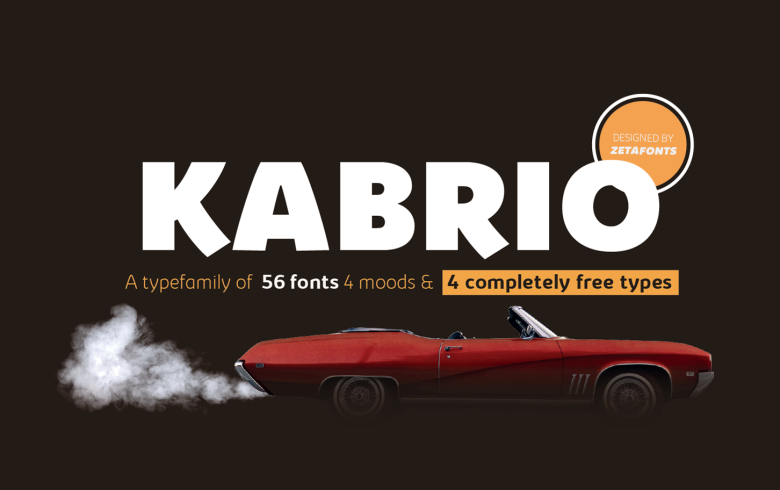
Kabrio Font Family
Today is a beautiful day, I would like to introduce you a new family fonts. You will enjoy using it in your designs. Introducing Kabrio Font Family! Kabrio designed by Cosimo Lorenzo Pancini and Andrea Tartarelli. Kabrio is a sans serif typeface for the lovers of minimal design, and great curves. Kabrio features four different corner treatments to offer variation in display and logo use: the “alternate” variant features slightly rounded corners, that become even more round in the “soft” variant. “Abarth” features cut corner for a more mechanical, cold look. Each variant comes in seven weights with matching italics, for a grand total of 56 weights to add to your typographic palettes. All Kabrio weights feature an extended character set with accents to cover over forty European languages as well as Russian and Bulgarian Cyrillc.